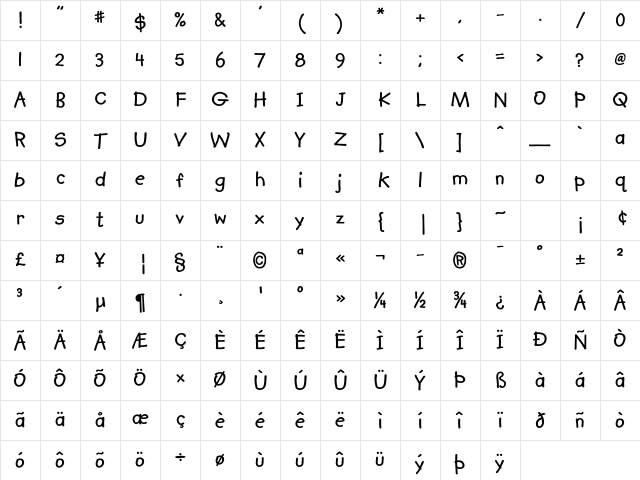
Kidprint MT Std Bold
Foundry: Agfa Monotype Corporation
Design Context for Kidprint MT Std
Kidprint MT Std is a composed and adaptable typeface that performs quietly and consistently across a wide range of design contexts. Its bold stroke weight gives it real presence on the page.